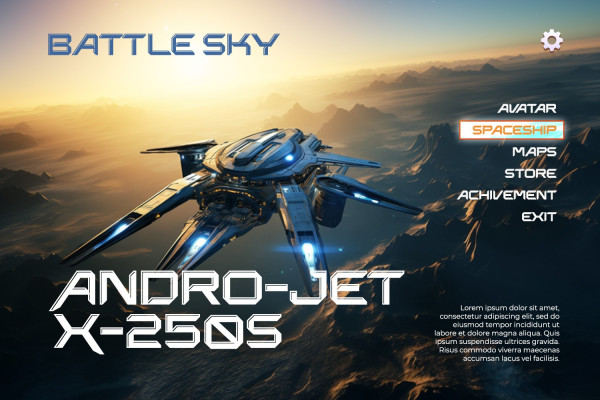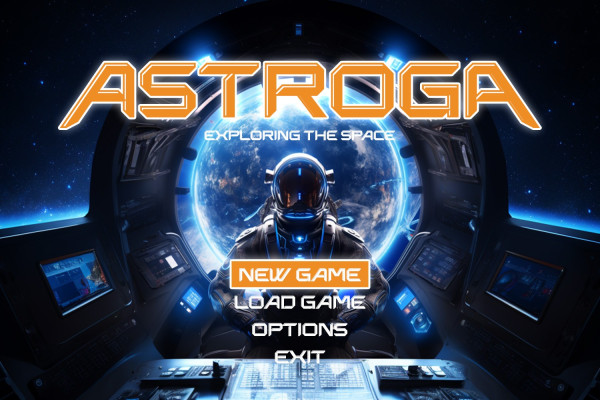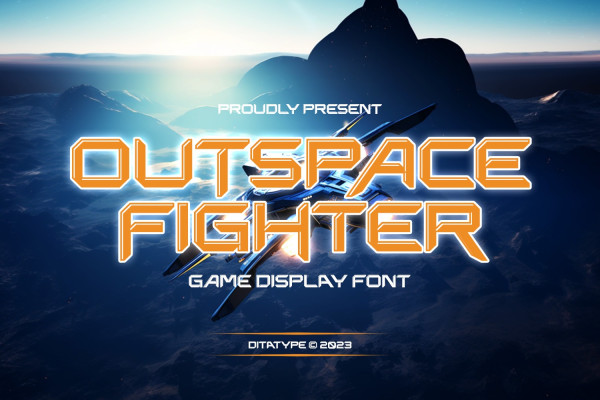
Outspace Fighter Font
Outspace Fighter Font is an electrifying game-themed display font designed in uppercase, capturing the essence of futuristic space battles. This font is made in boxy shapes with sharp corners, evoking a sense of strength and precision. Each uppercase letter is meticulously crafted to exude a futuristic aesthetic, mirroring the angular and geometric forms found in the vast expanse of outer space.
This design choice gives the font a sleek and modern appeal, perfect for conveying the intensity of space battles. With low-contrast letters, this font places emphasis on the overall form and structure of the font. The subtle differences in stroke width create a balanced and unified visual experience. This design choice ensures legibility while maintaining a cohesive and visually appealing composition, allowing your audience to effortlessly engage with your game-themed designs.
Outspace Fighter fits in headlines, logos, posters, titles, branding materials, print media, editorial layouts, website headers, and any other projects. Find out more ways to use this font by taking a look at the font preview.